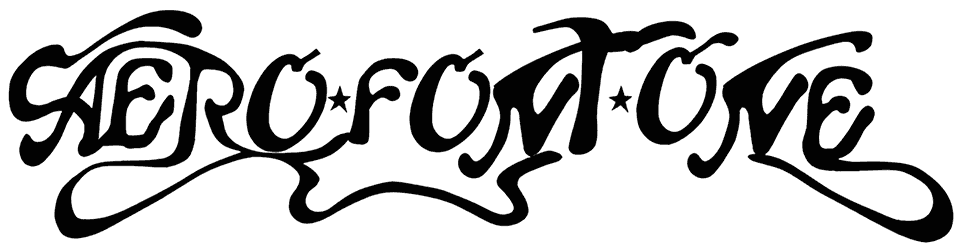
Aero Font One Font
Designed bySteve Ferrera
If you want to make your logos, album covers, and other promotional materials stand out from the crowd, use the Aero Font One, which comes with two distinctive swash styles.
Aero Font One is a death font that can be used to make a trashy design. It doesn’t have numbers and is hard to read, so don’t be afraid to use it to make your design stand out. Explore RB to learn more about the unique fonts we offer.